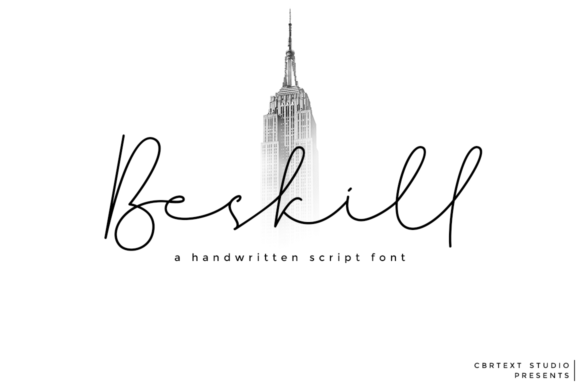
The Magic of Beskill Font: Elevate Your Creative Vision
Have you ever been struck by an idea so brilliant that you couldn’t wait to bring it to life? Maybe it was a logo concept, a social media post, or a promotional campaign. Whatever it was, you knew exactly how you wanted it to look – with flair, with personality, and with a dash of whimsy. That’s where Beskill Font comes in – a modern handwritten script font designed to breathe new life into your creative projects.
Beskill Font is more than just a typeface; it’s a tool for designers to craft unique and captivating visual stories. With its elegant, cursive lines, it adds a touch of sophistication to any design, making it perfect for branding, advertising, and editorial work. Whether you’re a seasoned pro or just starting out, Beskill Font is a valuable addition to your design toolkit, helping you to stand out in a crowded market and leave a lasting impression on your audience.
Beskill Font Key Features
- Font Family: Beskill comes in two font styles, Beskill Regular and Beskill Bold, each with its unique characteristics.
- Font Size: Beskill is designed to be highly legible at various font sizes, ranging from 10pt to 24pt, making it ideal for both body text and headings.
- Unique Characteristics: Beskill features a unique blend of modern and vintage elements, with subtle flair and flair lines that add a touch of sophistication to any design.
- Language Support: Beskill supports a wide range of languages, including Latin, Cyrillic, and Greek scripts, making it a versatile choice for global design projects.
Beskill Font Review
Overall, I think Beskill Font is a decent addition to any designer’s toolkit, but it’s not without its quirks. Let’s dive into the good and the bad.
- Unique design: Beskill Font has a distinctive, modern aesthetic that’s perfect for branding and creative projects.
- Customizable: The font comes with a range of weights and styles, making it easy to find the perfect fit for your design.
- Legibility: Beskill Font is highly legible, even at smaller font sizes, which is a must for any font.
- Limited language support: Beskill Font is primarily designed for Latin-based languages, which may be a limitation for designers working on multilingual projects.
- No italic or oblique styles: While the font comes with bold and light styles, it’s missing italic and oblique options, which can be a drawback for designers who rely on these styles.
Overall impression
Beskill Font is a solid choice for designers who want a unique, modern font for their projects. While it has some limitations, its unique design and high legibility make it a great addition to any designer’s toolkit. With some additional language support and italic/oblique styles, Beskill Font could be a top contender in the font market.
Beskill Font: A Practical Application Guide
Tips for Getting the Most Out of Beskill Font
1. Experiment with different font sizes and styles to create visual interest.
2. Pair Beskill with other fonts to create a unique and balanced design.
3. Use Beskill for headings and titles to make your design stand out.
Beskill font is ideal for:
1. Creative projects, such as infographics and posters.
2. Business presentations, such as pitch decks and reports.
3. Digital publications, such as e-books and magazines.
Alternatives to Beskill Font
Beskill Font is a sans-serif font known for its modern and clean appearance, making it suitable for various design projects. However, depending on the specific requirements of a project, other fonts may be more suitable. Here are some alternatives to Beskill Font:
Open Sans is a highly legible and modern sans-serif font designed for digital media. It is a great alternative to Beskill Font for projects requiring a clean and minimalistic look. Open Sans is more versatile than Beskill Font, making it suitable for both body text and headings. It also has a larger character set and supports multiple languages.
Q: Is the Beskill Font optimized for web use?
Yes, the Beskill Font is optimized for web use and includes advanced features such as sub-pixel rendering and font hinting. This ensures that the font displays crisply and clearly on a wide range of devices and screen resolutions.